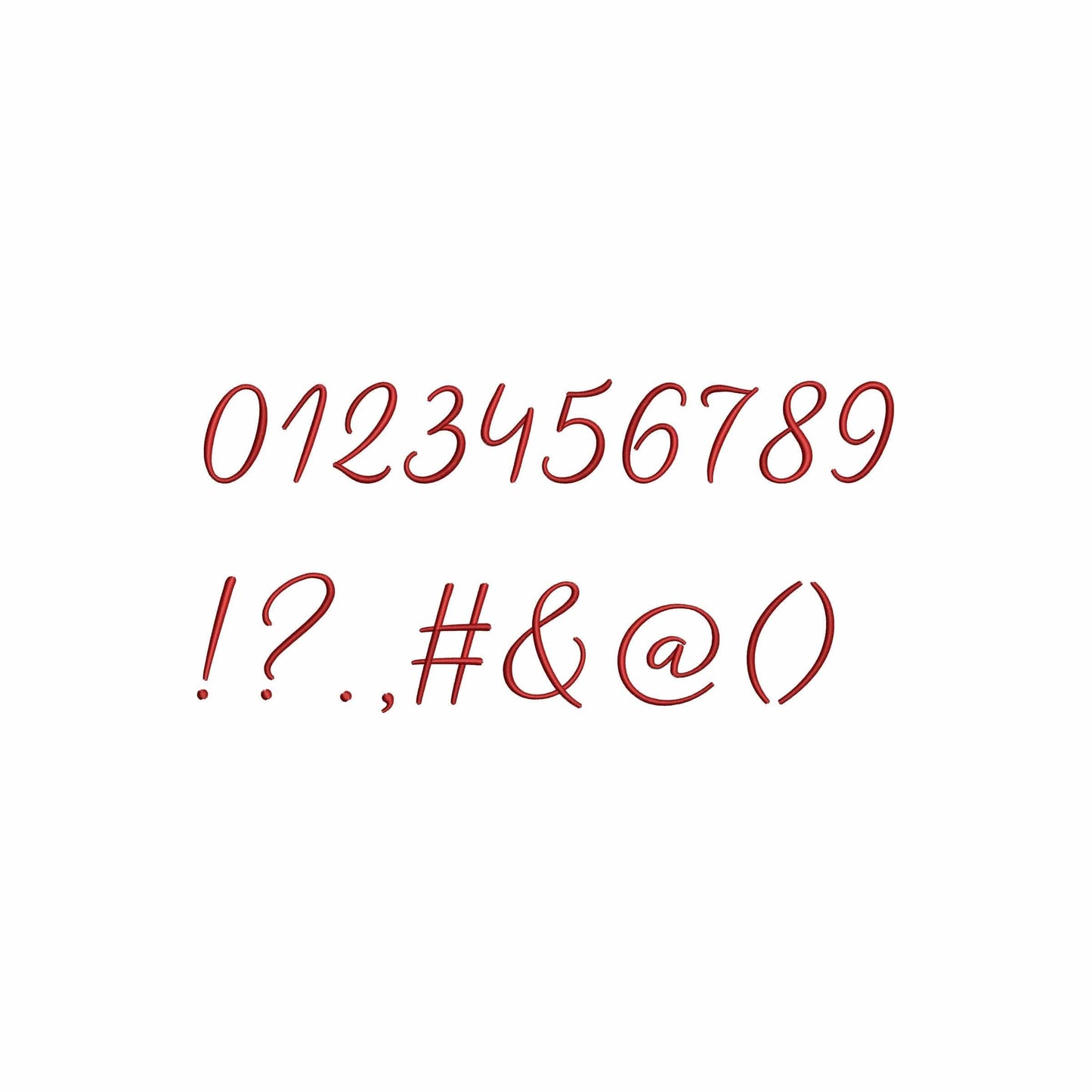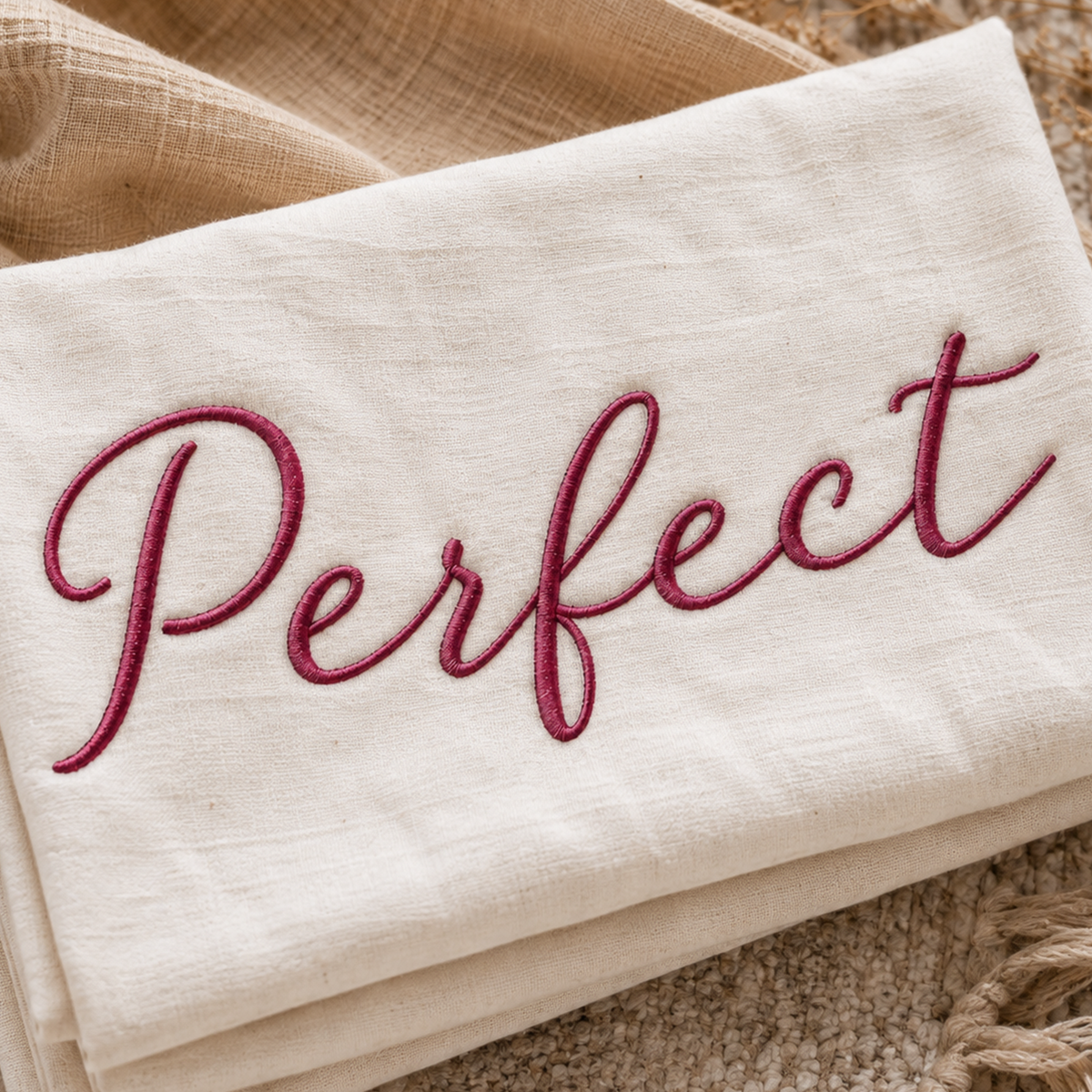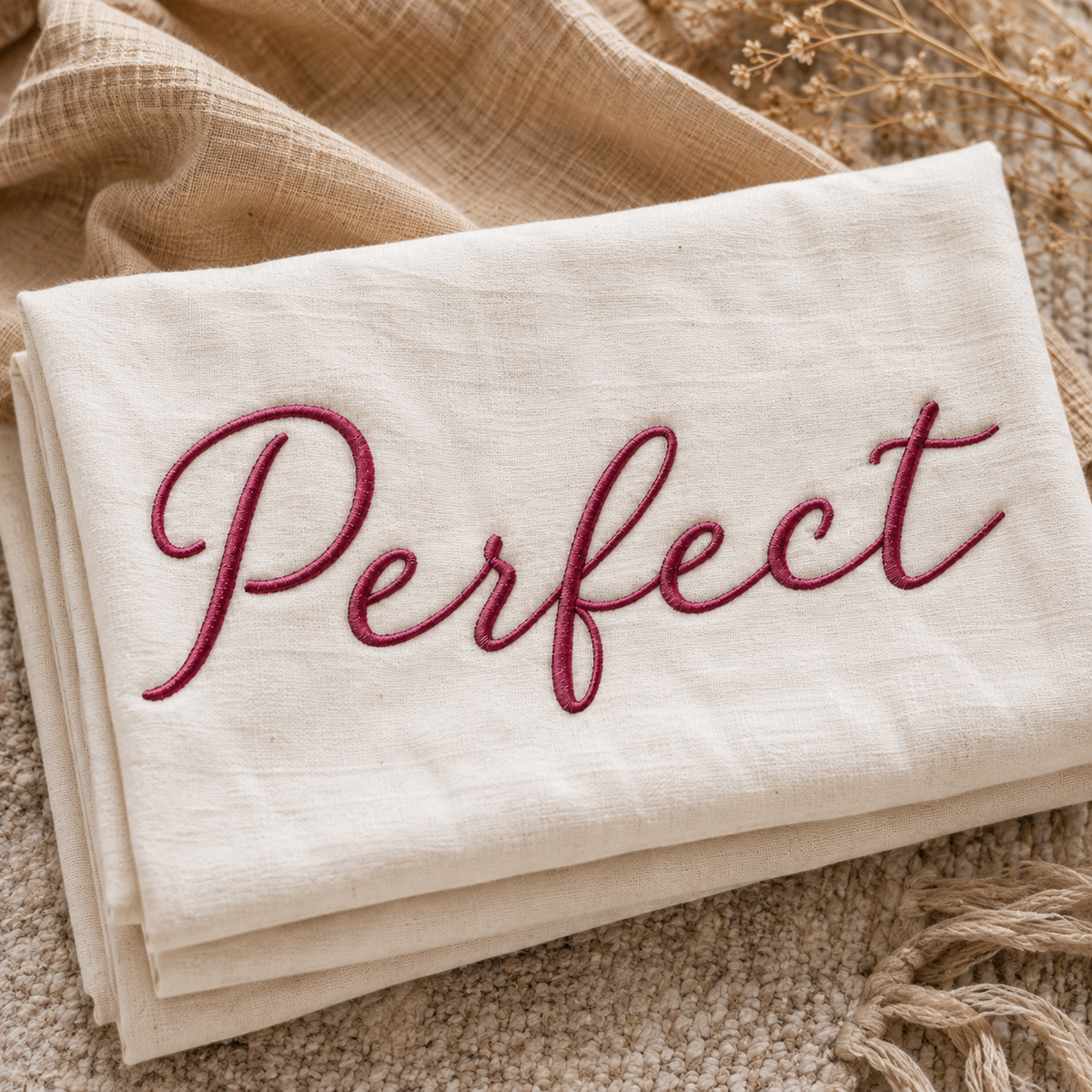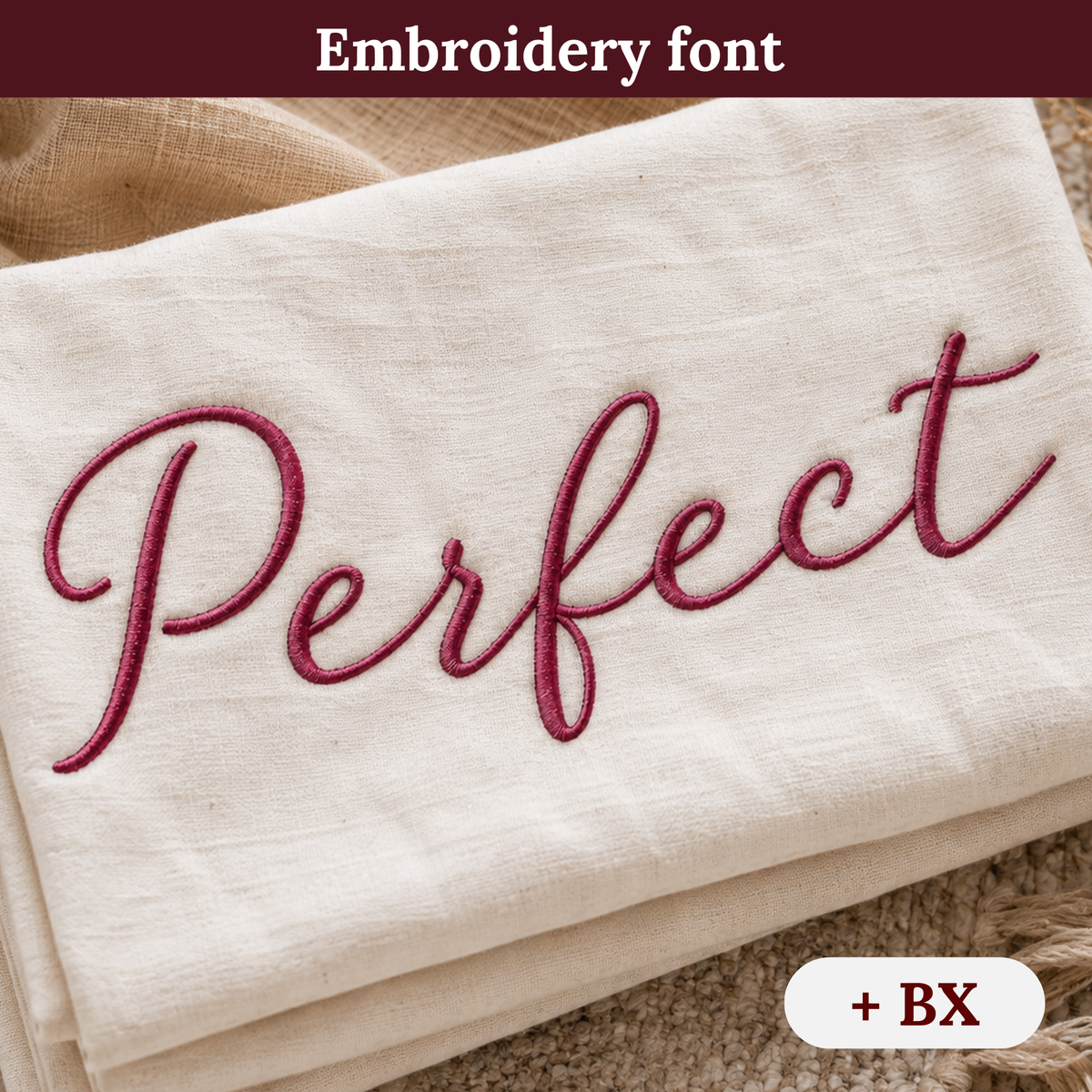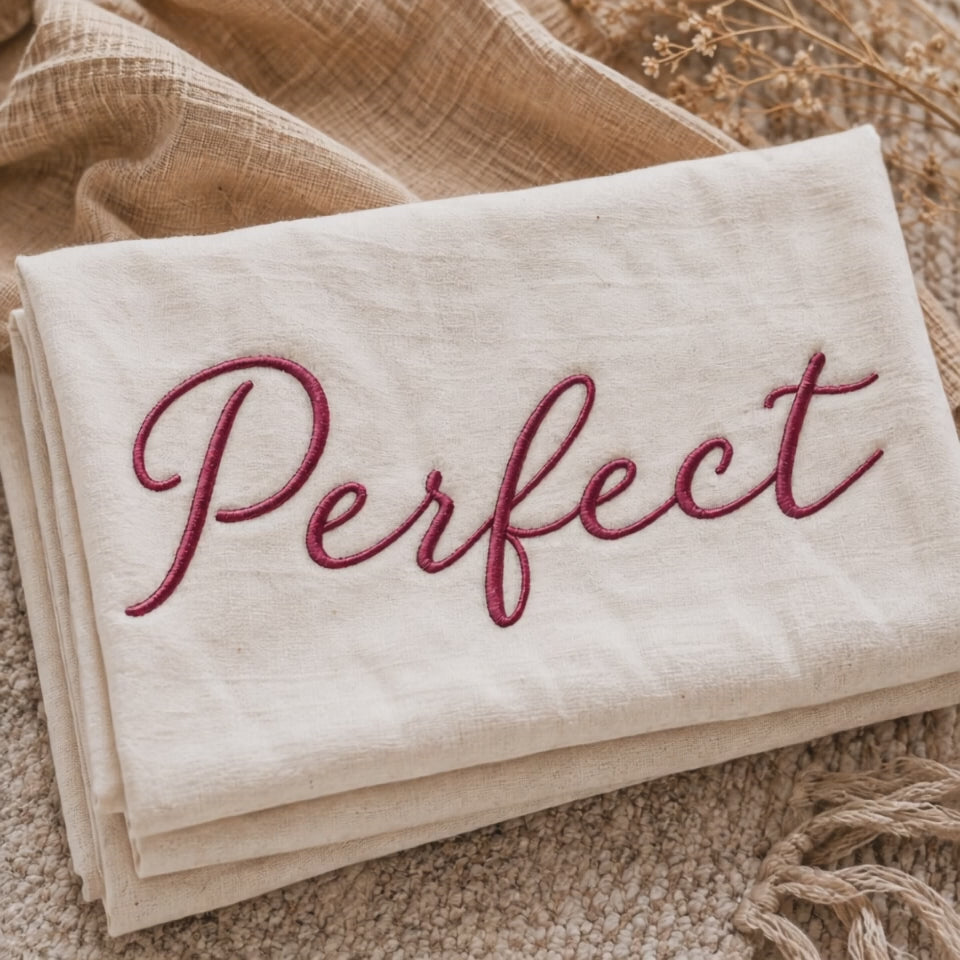
Perfect - Embroidery font
This machine embroidery font works well for monograms, wedding items, towels, shirts, gifts, and elegant personalized embroidery.
A strong choice for makers who want script lettering for bridal gifts and polished custom projects.